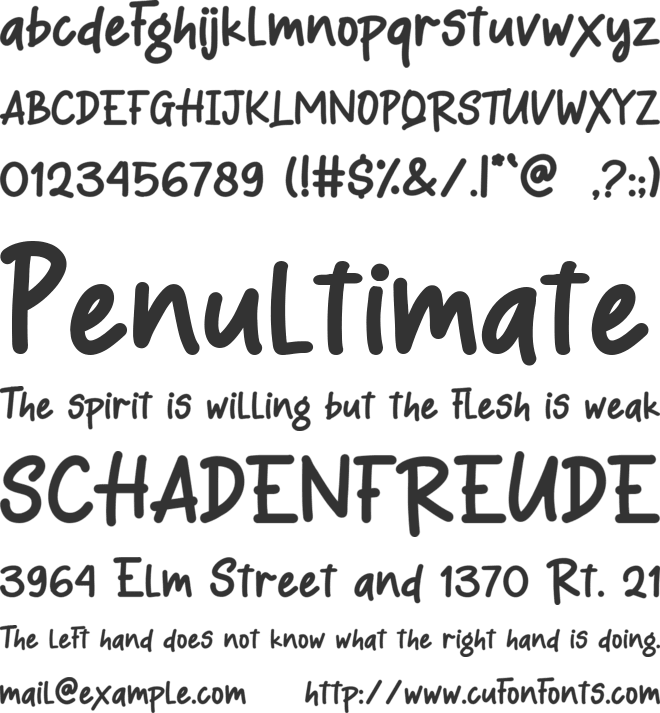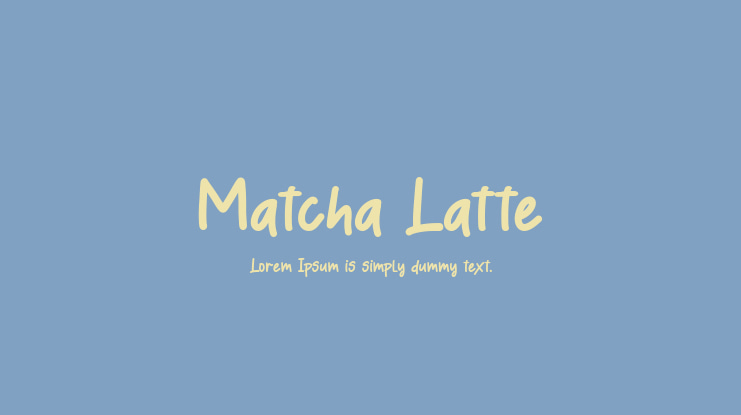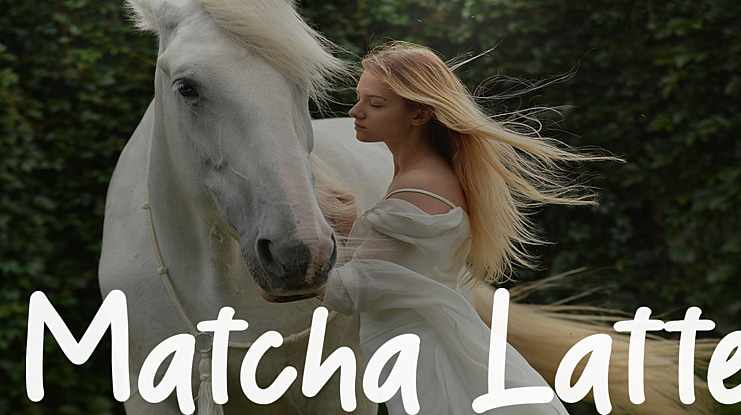
Matcha Latte Font
Matcha Latte is a simple and fun handwritten font. Its flexibility and neat style will brighten up each of your designs. Have fun with this cool font and explore its endless variations.